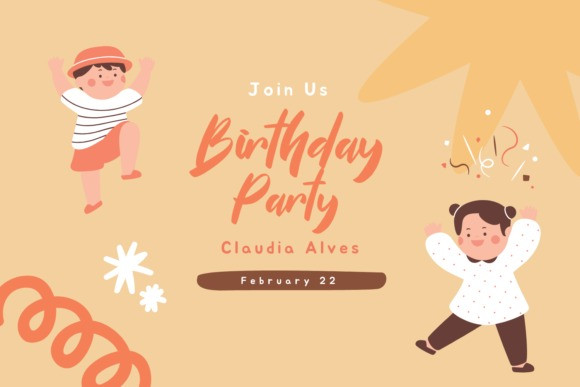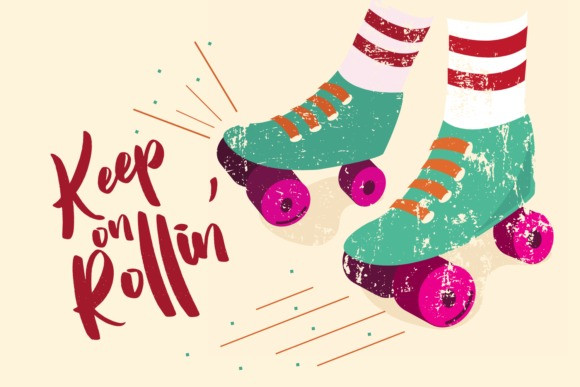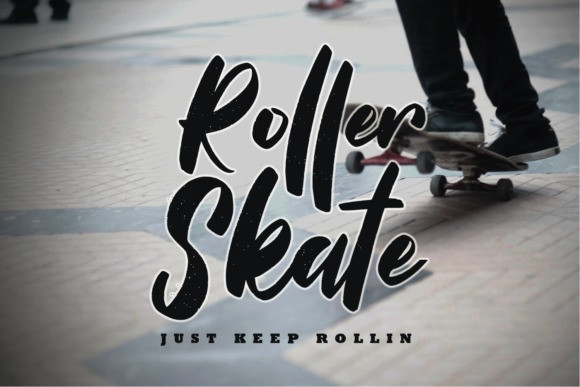
Roller Skate Font
Roller Skate Script Font is a trendy paint brushed script font. It will look lovely on invitations, Easter cards, quotes, greeting cards, logos, business cards, and every other design you can think of.